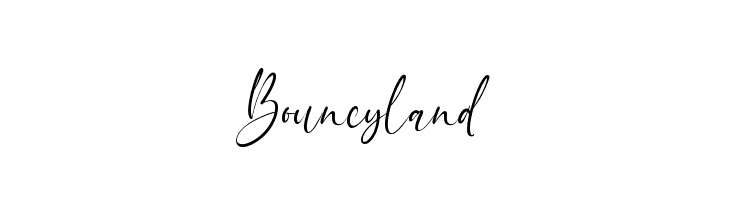
A graceful script font with flowing, interconnected letters and elegant flourishes.
An elegant and sophisticated script font with decorative flourishes.